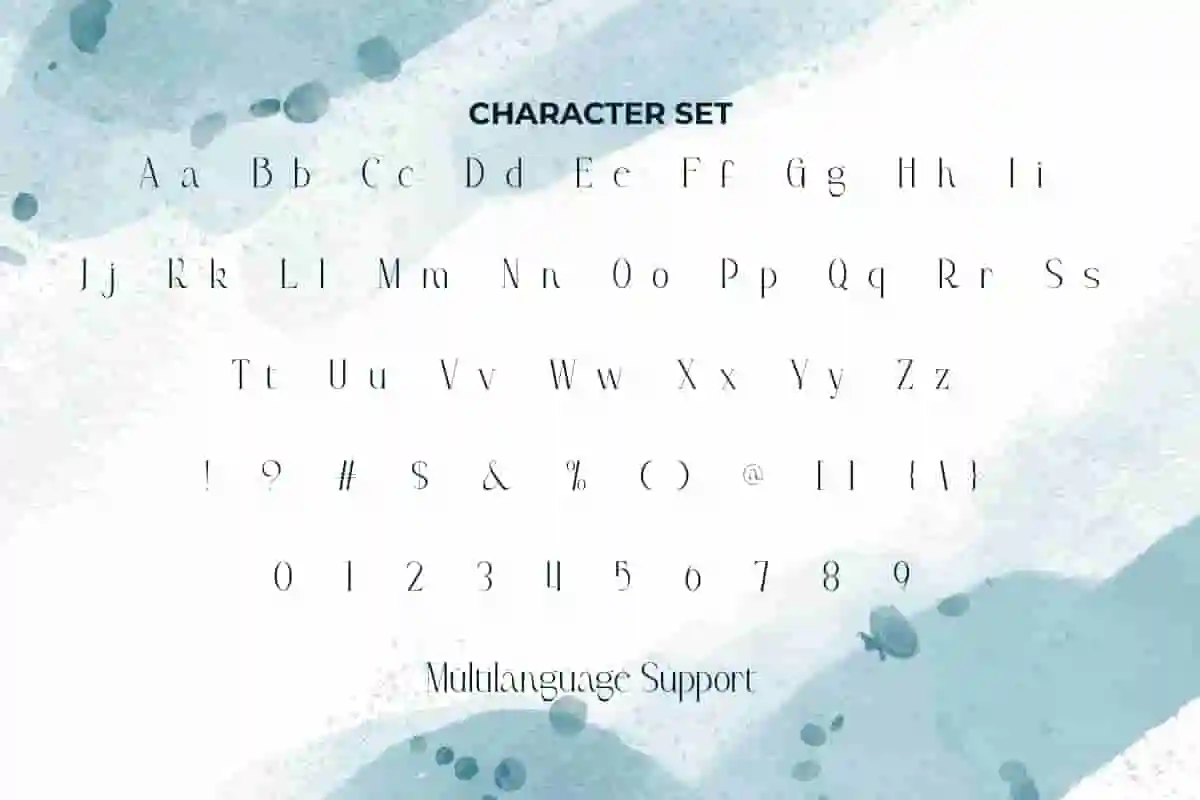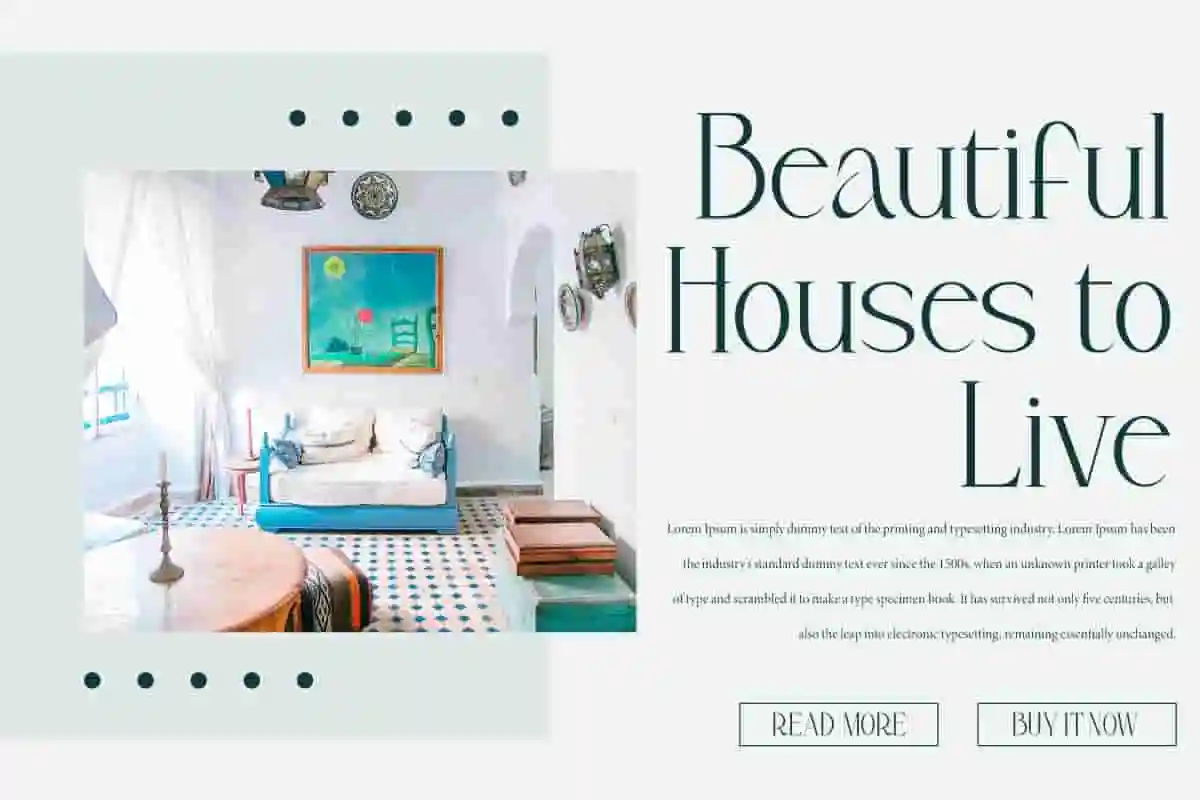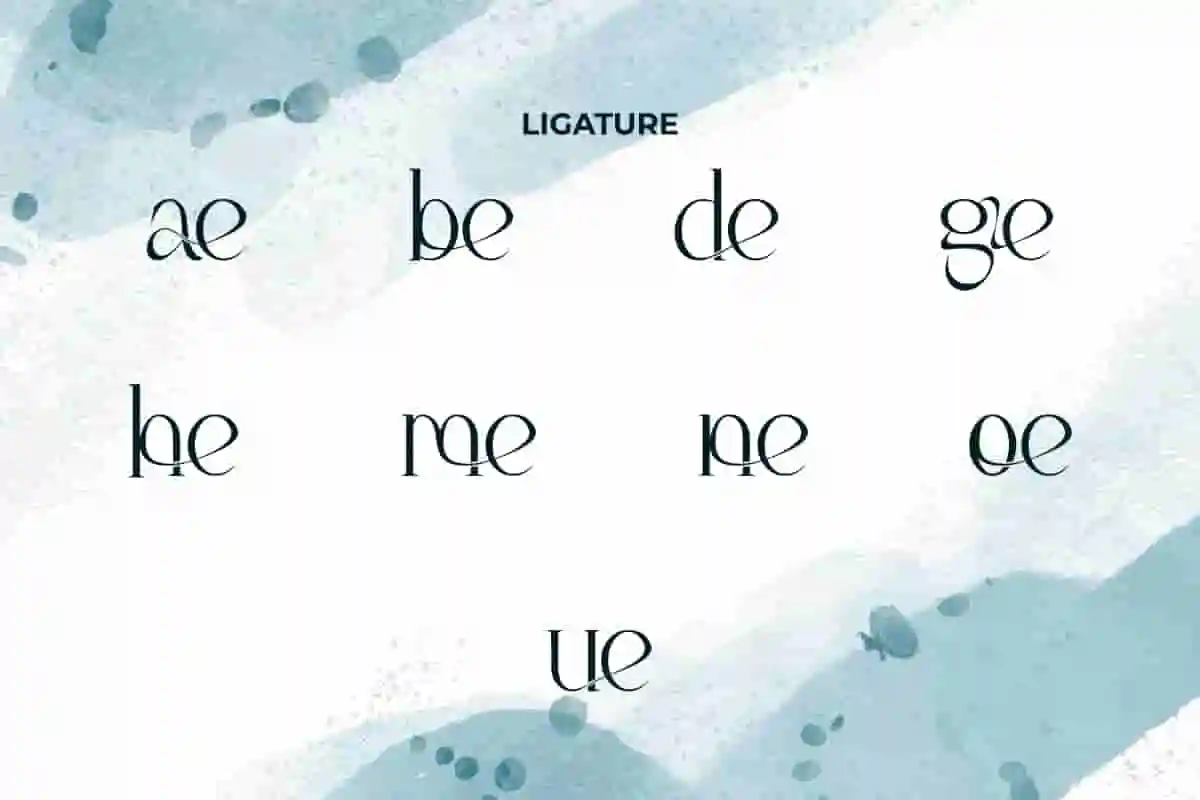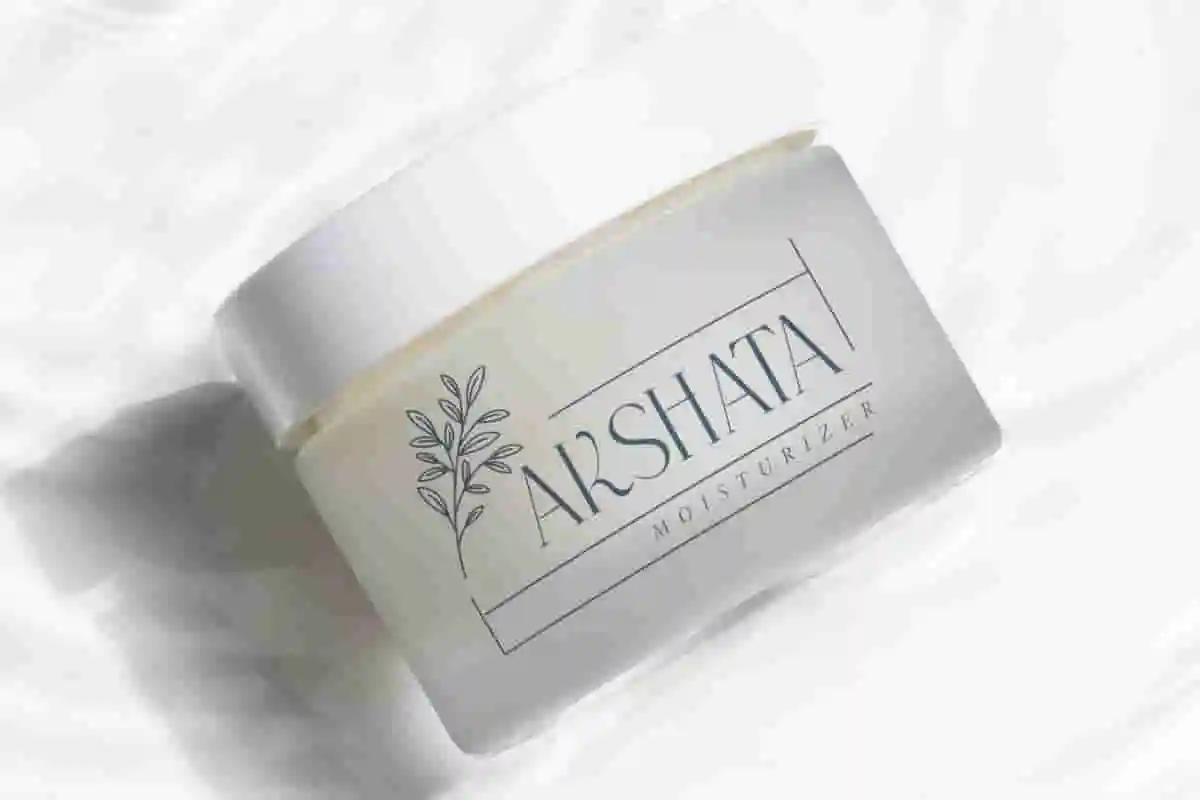
Gemme Bleue Font is a fancy and sheer serif display font. This font has an elegant and clean style that can take your designs to a different level. It will be perfect for any designs, such as brand image, cover, custom design, invitation, label, marketing material, menu, poster, product packaging, quotes, signage, stationery, web, and many more!
Gemme Bleue Font includes full set of Uppercase and Lowercase Basic Characters, Numerals and Punctuation, and Ligature character. This font will be perfect choice for many industries, such as advertising, cafe, beauty product, event or wedding organizer, fashion, jewelry and accessories, photography, printing, publishing, restaurant, etc.